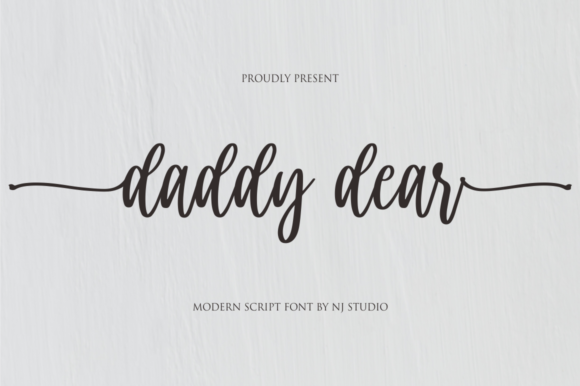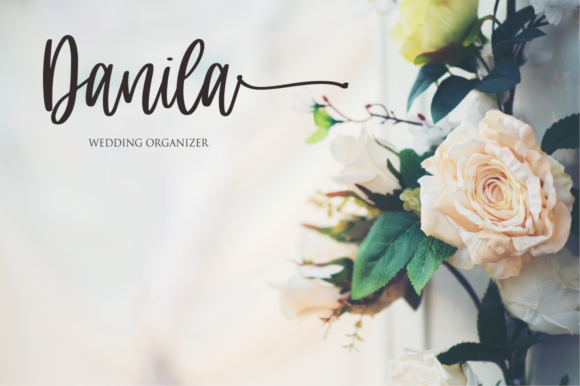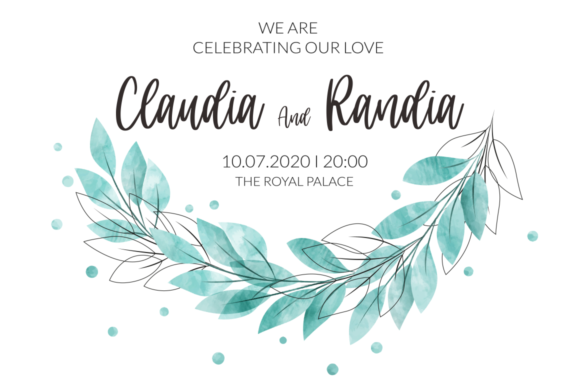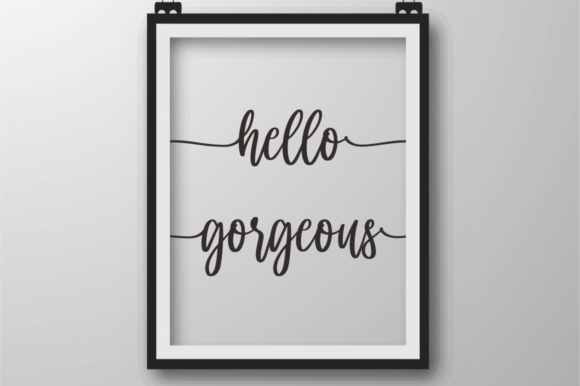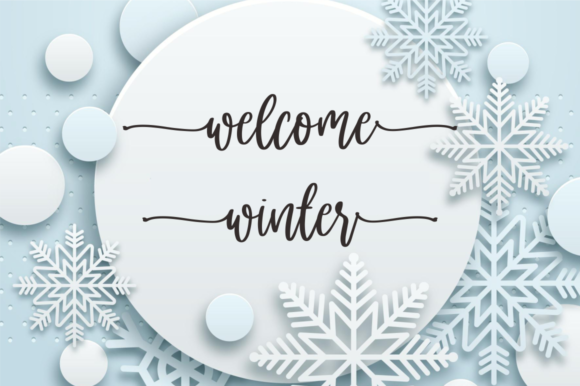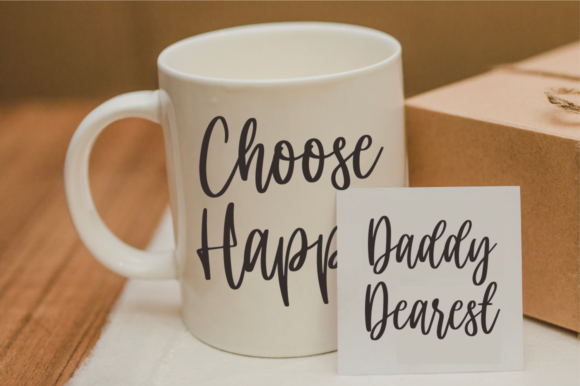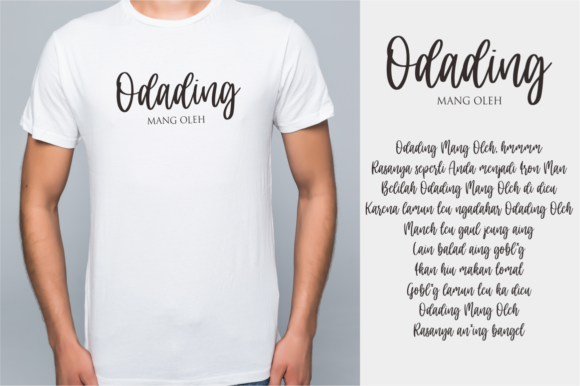
The Perfect Addition to Your Font Library
Have you ever been working on a project and suddenly, that one missing element brings it all together? For designers, it’s often a font that makes the difference between a good design and a great one. I’ve had those moments, and I’m sure you have too.
That’s where the Daddy Dear Font comes in – a beautiful, cursive handwritten font that adds a touch of elegance to any creation. With its PUA encoding, you can easily access all the glyphs and swashes, giving you endless possibilities to experiment and express yourself. This font is an incredibly valuable asset to any designer’s library, capable of elevating even the most mundane projects to new heights.
Daddy Dear Font Key Features
- Font Family: Daddy Dear is a unique, hand-drawn font family with a playful and whimsical feel.
- Character Set: The font family includes over 200 characters, including uppercase and lowercase letters, numerals, punctuation marks, and special characters.
- Unique Characteristics: The font features a distinctive, hand-drawn style with subtle imperfections and variations, giving it a charming, human touch.
Daddy Dear Font Review
Overall, I have mixed feelings about the Daddy Dear Font. While it has some great qualities, it also has some limitations that might make it less suitable for certain projects.
- The font has a unique, playful touch that’s perfect for creative projects like children’s books, advertisements, or social media graphics.
- The font is highly legible, even at smaller font sizes, making it a great choice for body text.
- The font comes in a variety of weights and styles, giving you a lot of flexibility in terms of customization.
- The font can feel a bit too playful and informal for more formal projects, like business reports or academic papers.
- The font might not be the best choice for projects that require a lot of text, as it can start to feel overwhelming at large font sizes.
- The font is not as versatile as some other fonts, and might not be suitable for projects that require a lot of different font styles.
Overall, I think the Daddy Dear Font is a great choice for creative projects that need a playful, attention-grabbing font. However, it might not be the best choice for more formal or text-heavy projects.
Getting the Most Out of Daddy Dear Font
For optimal results, use Daddy Dear Font in conjunction with a distressed or vintage design style.
Use Daddy Dear Font for headings, titles, and quotes to add a touch of whimsy and personality to your designs.
Daddy Dear Font is perfect for:
Family photo albums and scrapbooks.
Children’s book illustrations and designs.
Any project that requires a playful, nostalgic feel.
Alternatives to Daddy Dear Font
The Great Vibes Font is a beautiful script font that is perfect for creating a warm and inviting atmosphere. It’s ideal for use in branding, advertising, and packaging design. Great Vibes Font has a more elegant and refined feel compared to Daddy Dear Font, which is more playful and casual.
The Alex Brush Font is a elegant and luxurious script font that is perfect for creating a sophisticated and high-end feel. It’s ideal for use in luxury branding, fine art, and high-end packaging design. Alex Brush Font has a more refined and polished feel compared to Daddy Dear Font, which is more casual and playful.
The Carolyna Pro Font is a modern and elegant script font that is perfect for creating a sophisticated and high-end feel. It’s ideal for use in branding, advertising, and packaging design. Carolyna Pro Font has a more modern and sleek feel compared to Daddy Dear Font, which is more playful and vintage.
The Playfair Display Font is a luxurious and elegant serif font that is perfect for creating a sophisticated and high-end feel. It’s ideal for use in luxury branding, fine art, and high-end packaging design. Playfair Display Font has a more refined and polished feel compared to Daddy Dear Font, which is more casual and playful.